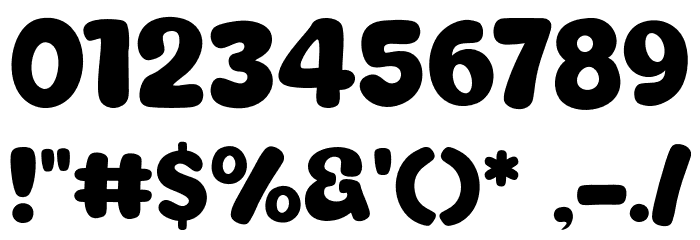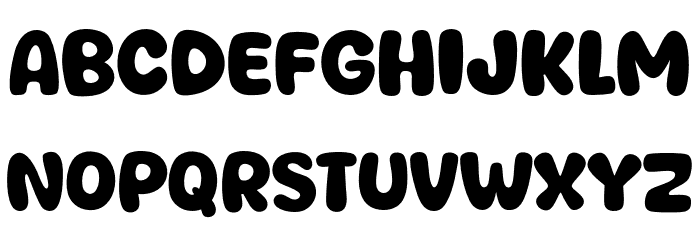
Socafe Font
Socafe Description
This playful and bold typeface features rounded, bubbly characters that exude a sense of fun and whimsy. The letters are thick and have a consistent stroke width, giving them a strong presence on the page. The font's rounded edges and smooth curves create a friendly and approachable look, making it ideal for designs that aim to convey warmth and creativity. The numbers and special characters maintain the same playful style, ensuring a cohesive appearance across all text elements. This typeface is perfect for projects that require a touch of personality and charm.
| Proposed Projects | Ideal for children's books, playful branding, event posters, and creative packaging. |